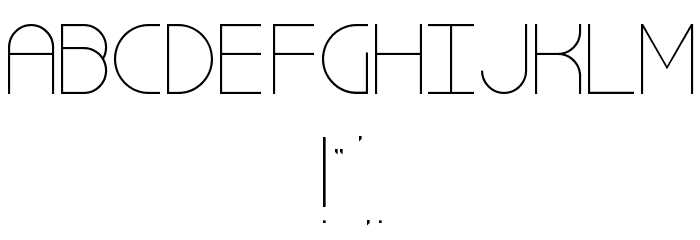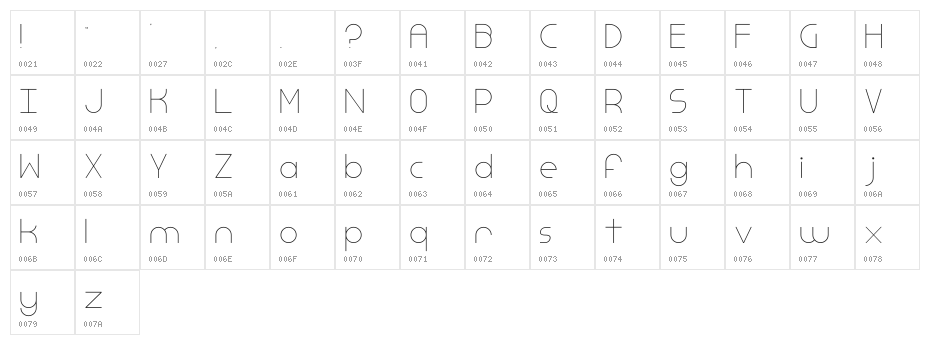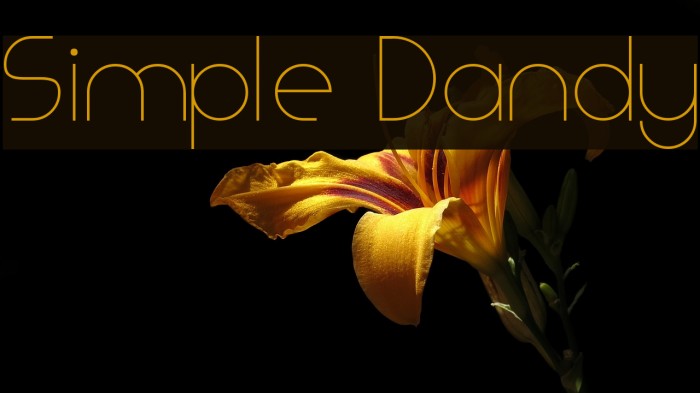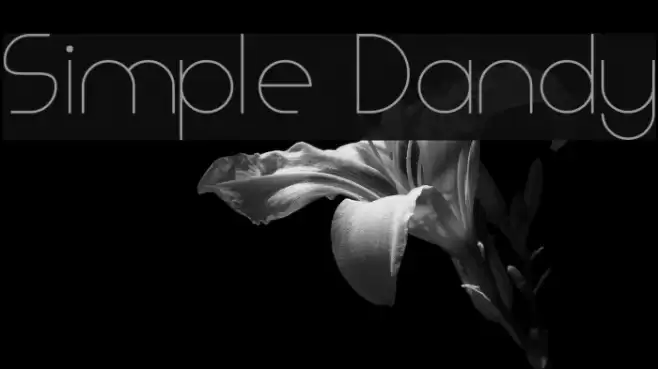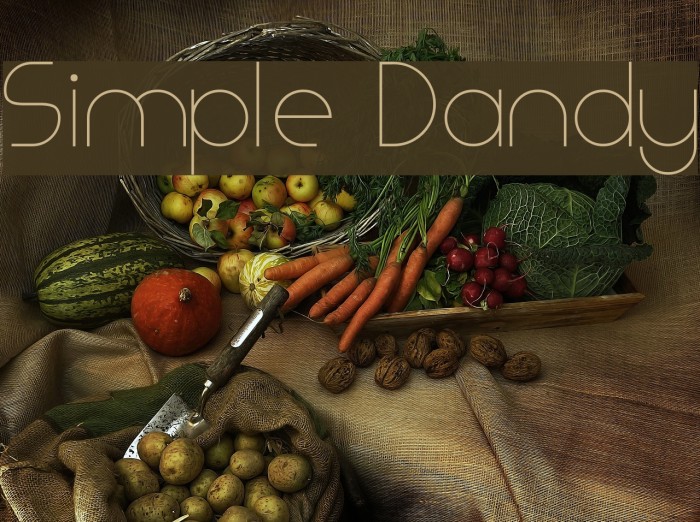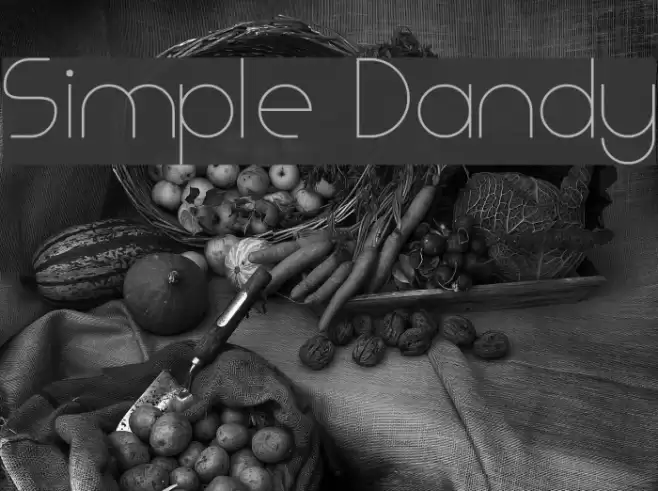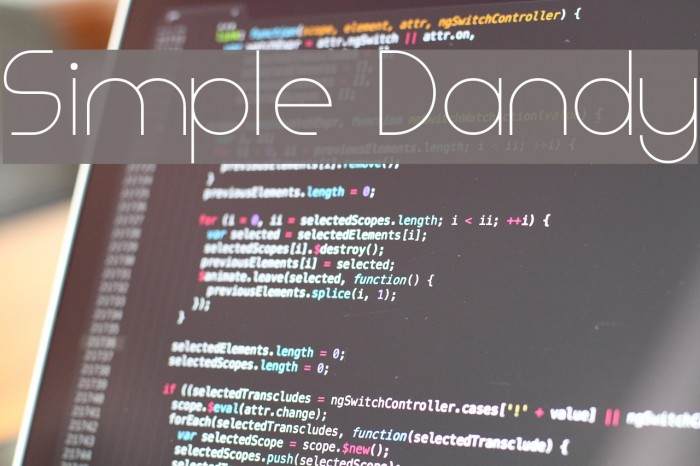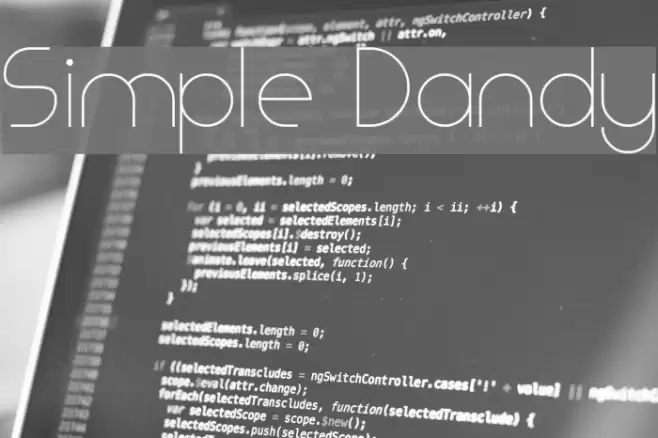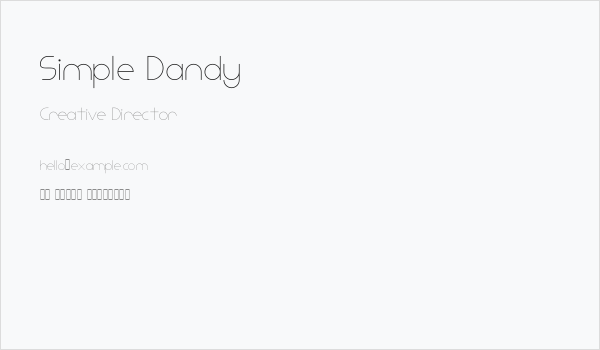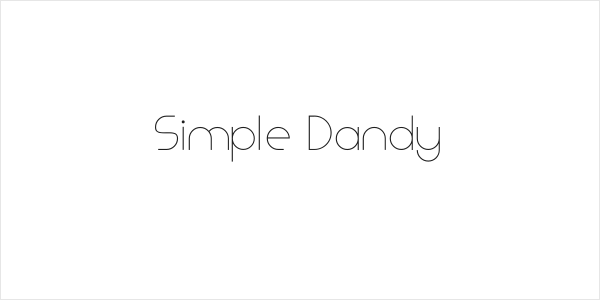
Simple Dandy Font
Simple Dandy Description
This font features a sleek, minimalist design with thin, uniform lines and a geometric structure. The characters are elegantly crafted with a modern aesthetic, emphasizing simplicity and clarity. The uppercase and lowercase letters maintain a consistent style, with rounded edges and a balanced proportion. The numerals and special characters are designed to complement the overall look, ensuring readability and visual harmony. This font's clean lines and open forms make it versatile for various design applications.
Use CaseHeadlines, Logos, Editorial design
Proposed ProjectsIdeal for modern branding, minimalist posters, tech-related designs, and clean editorial layouts.